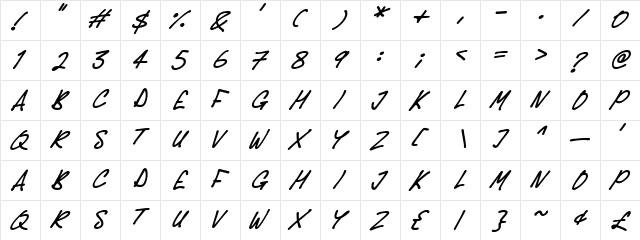
Delicious Scrawl Italic Font Preview
Delicious Scrawl Italic
Delicious Scrawl Italic Font Details
Design Context for Delicious Scrawl Typeface
Delicious Scrawl is a composed and adaptable typeface that performs quietly and consistently across a wide range of design contexts. Its italic angle brings a sense of urgency and motion to the letterforms.
Pro Tip: Use Delicious Scrawl for emphasis, pull quotes, and subheadings where its slanted energy can add rhythm to the layout.